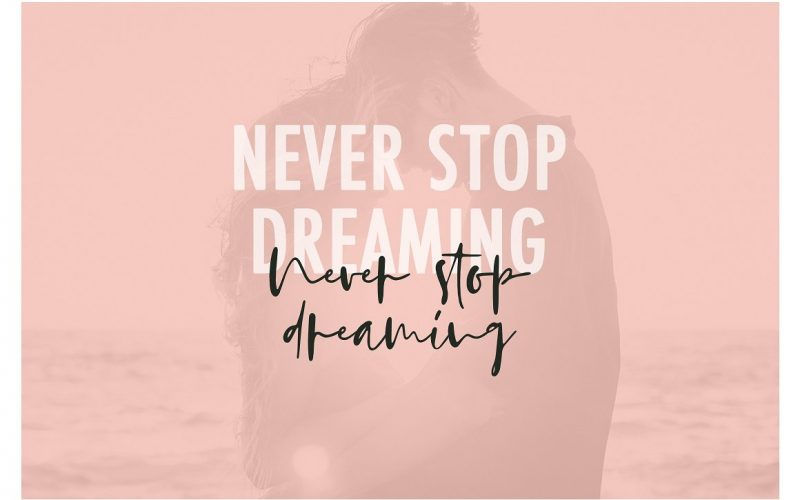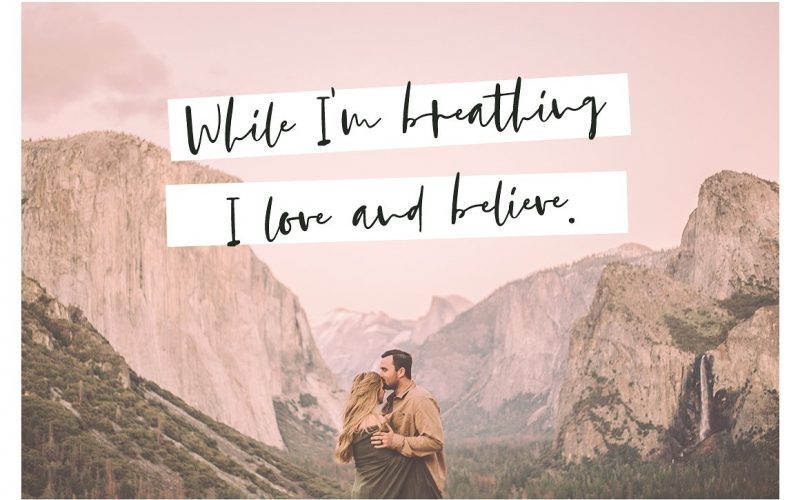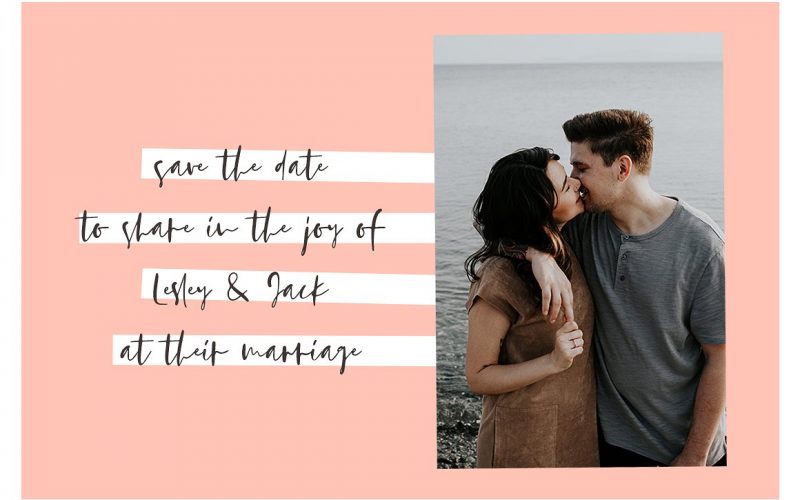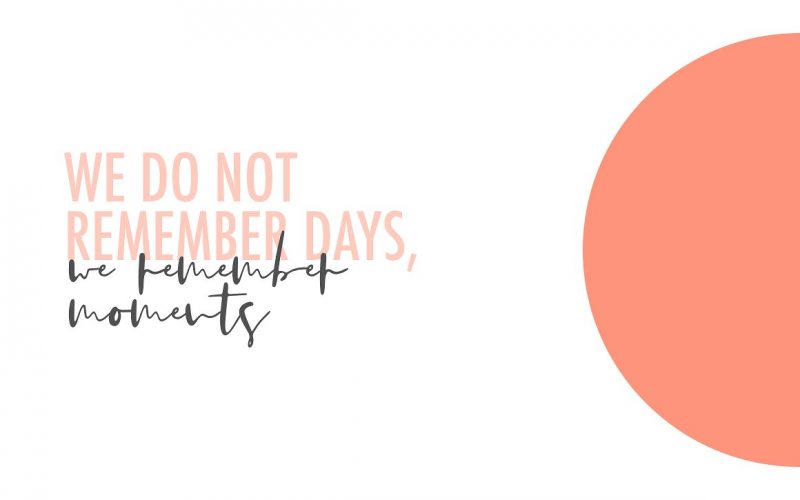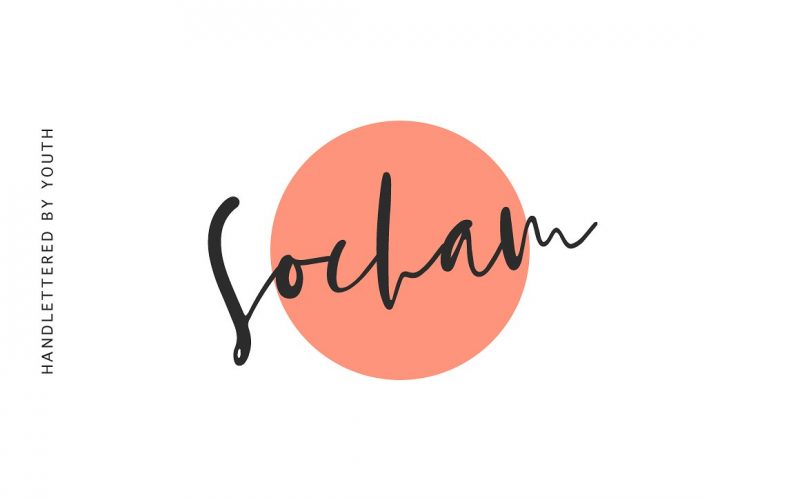
Socham Script Font
Hello Everyone! This is an modern calligraphy script font based on the expression of real handwriting. A modern and elegant font with a lot of stylistic alternates for your beautiful project. Introducing Socham Font. Also with their help, you can create a Wedding lettering or beautiful frame for your home. Or just use for your small business, book covers, stationery, marketing, magazines and more.